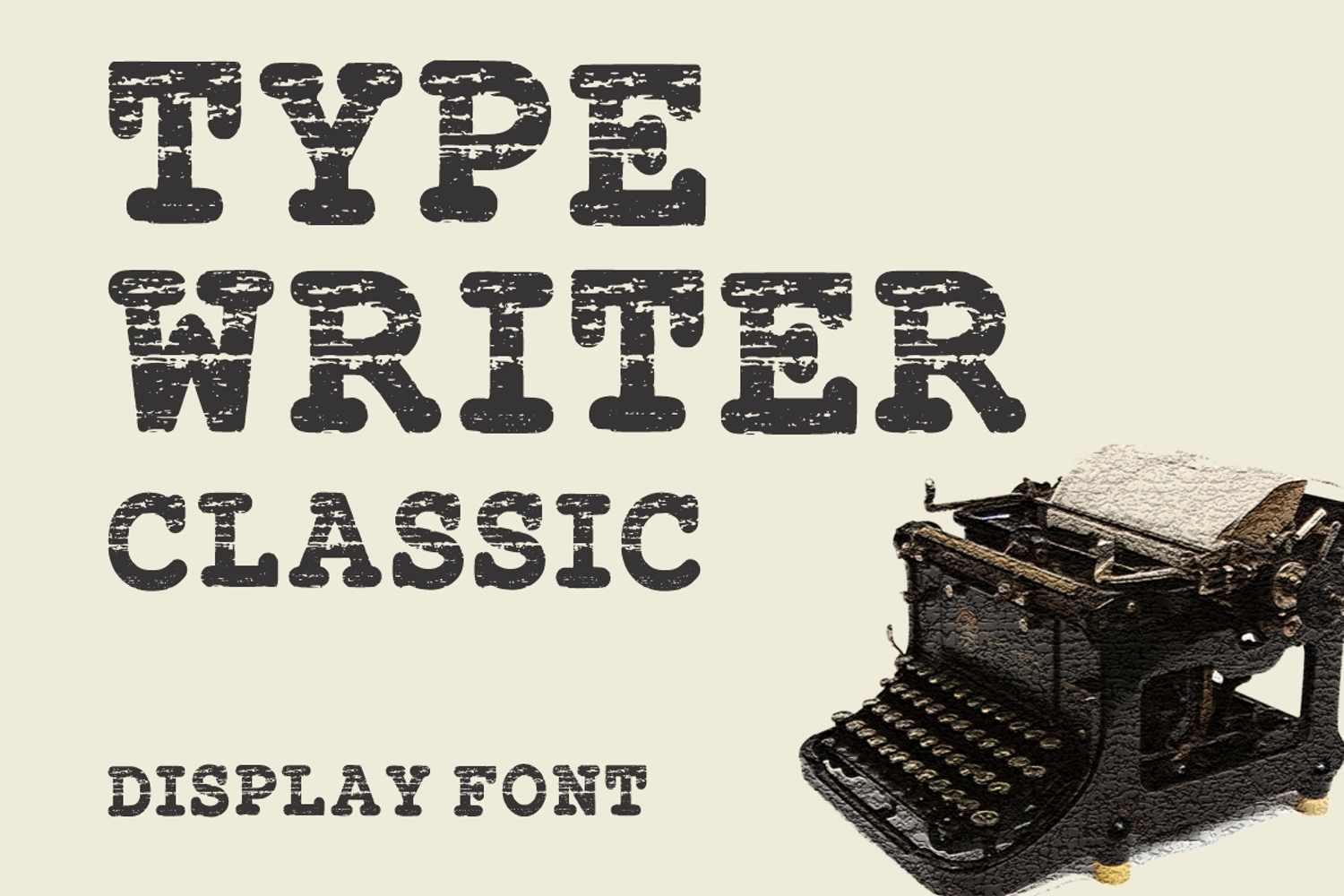
Type Writer Classic
Type Writer Classic is a type writer old classic, bold retro display font. Its informal style and casual vibe will make this font a go-to choice for each of your creations that require a relaxed touch. It is suitable for any product packaging, invitation, quote, t-shirt, label, poster, or logo that you wish to develop!